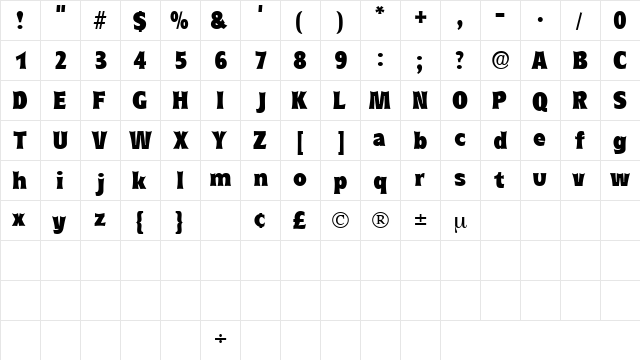
EleutheriaDisplaySSK Regular
Design Context for EleutheriaDisplaySSK Typeface
EleutheriaDisplaySSK brings ornamental detail and strong personality to headlines and identities, where visual impact matters more than quiet functionality.
Font Pairing: Pair with a clean neutral sans-serif for body copy to let EleutheriaDisplaySSK's character lead without overwhelming the composition.
Pro Tip: Use EleutheriaDisplaySSK exclusively at display sizes — it was designed to be seen, not read at length. Let a neutral companion handle body copy.